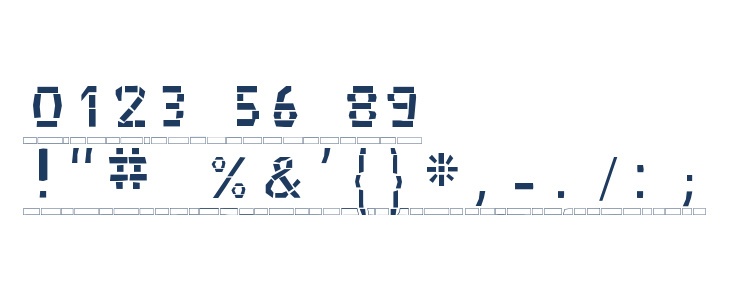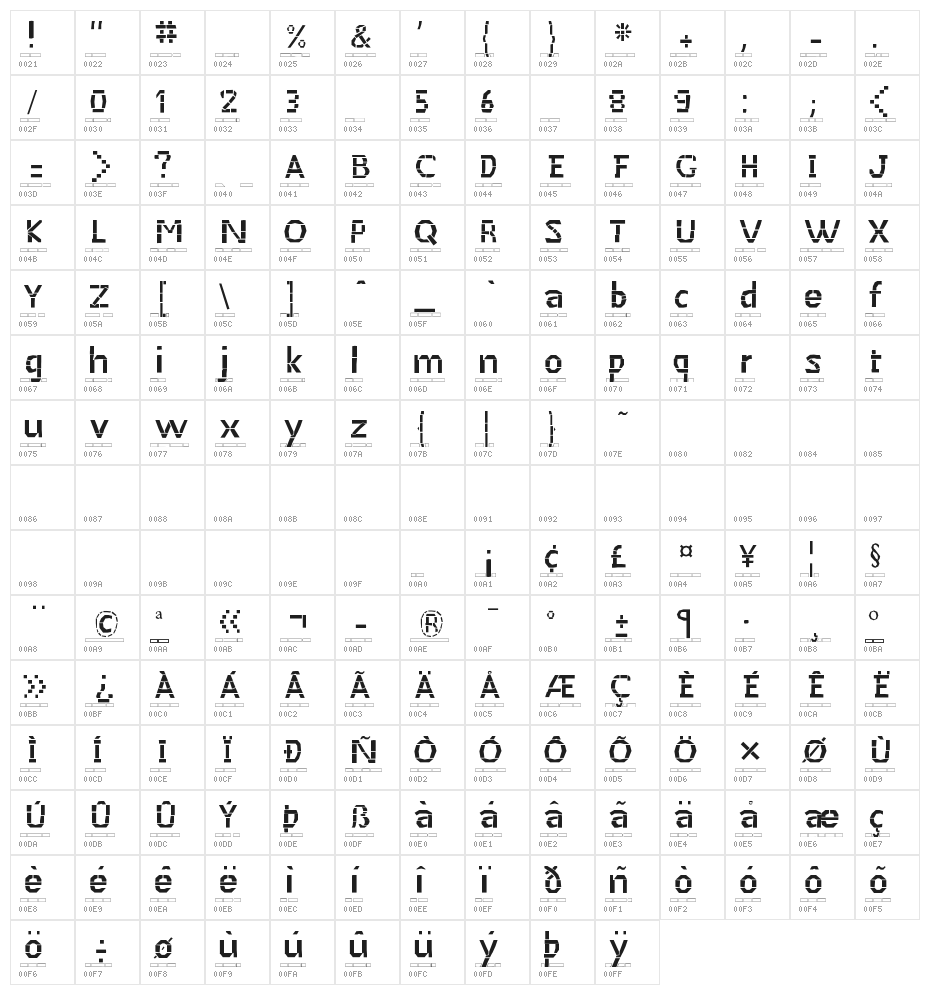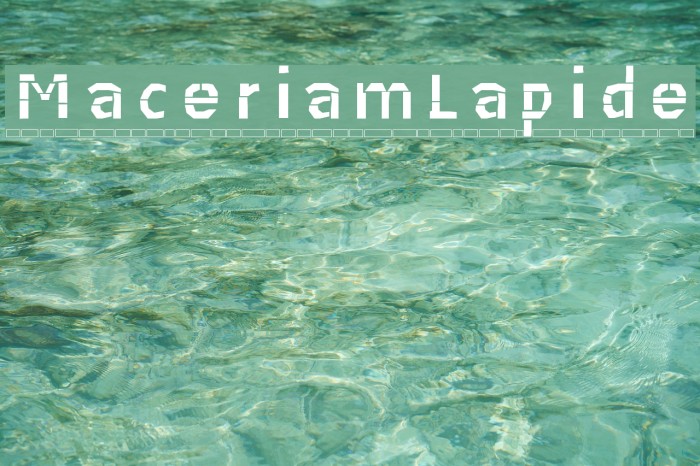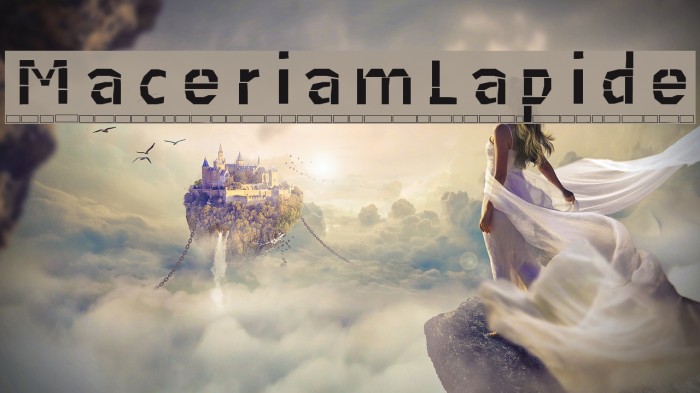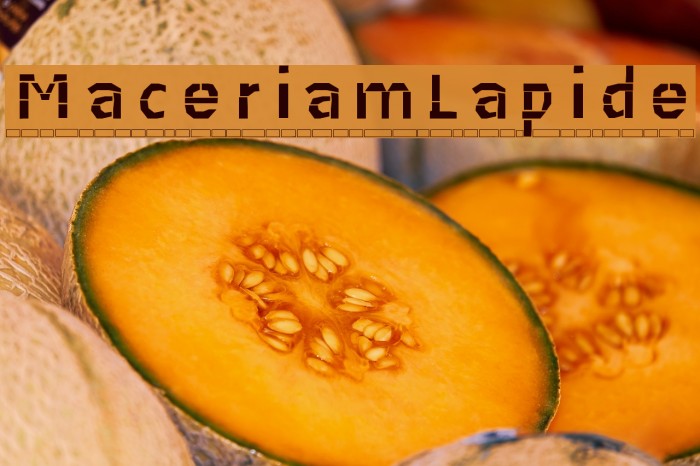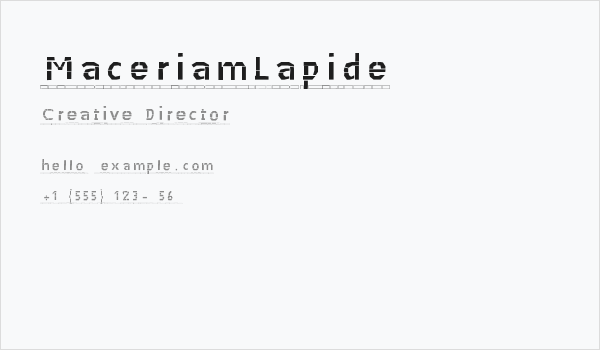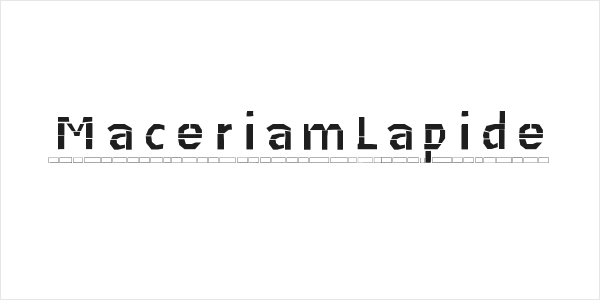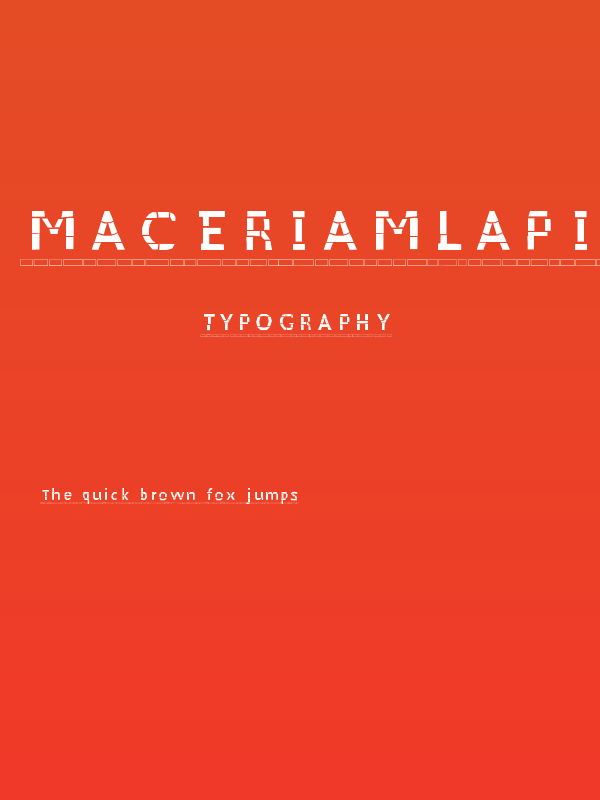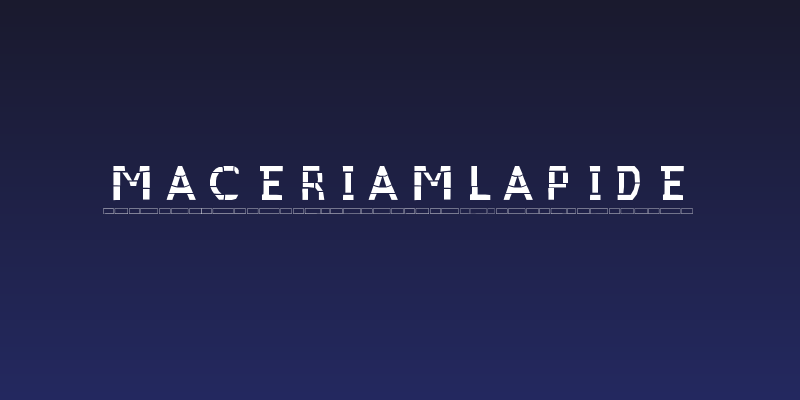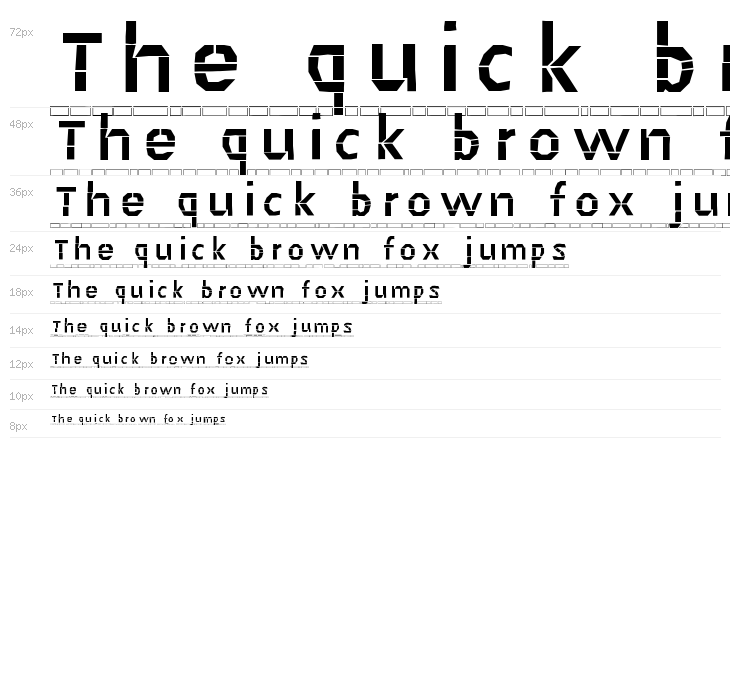
MaceriamLapide Font
MaceriamLapide Description
This font features a unique, geometric design with a stencil-like appearance. Each character is constructed with bold, angular lines and distinct cutouts, giving it a modern and industrial feel. The uppercase letters are particularly striking, with sharp edges and a strong presence. Lowercase letters maintain the same boldness, ensuring consistency throughout the typeface. Numbers and special characters follow the same design principles, making them easily recognizable and visually cohesive. The font's overall style is both futuristic and utilitarian, suitable for projects that require a strong, impactful visual statement.